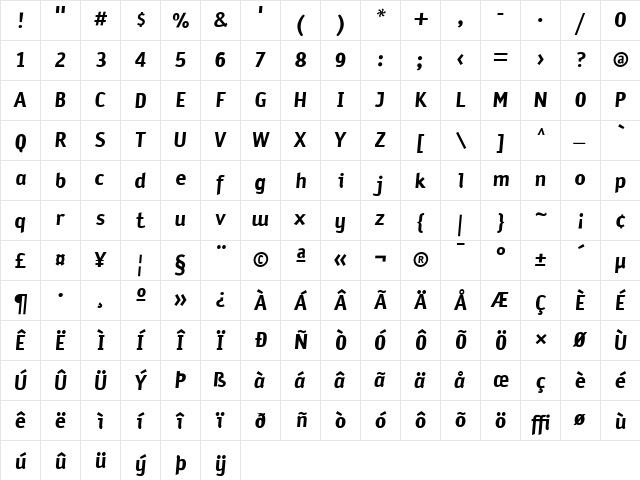
Sodium Bold Italic
Design Context for Sodium Typeface
Sodium takes a measured approach to typography — its balanced proportions and neutral character make it a reliable workhorse for both digital and print work. The slanted form adds forward momentum and visual energy. The heavy weight commands attention and anchors typographic hierarchies.
Pro Tip: Use Sodium for emphasis, pull quotes, and subheadings where its slanted energy can add rhythm to the layout.